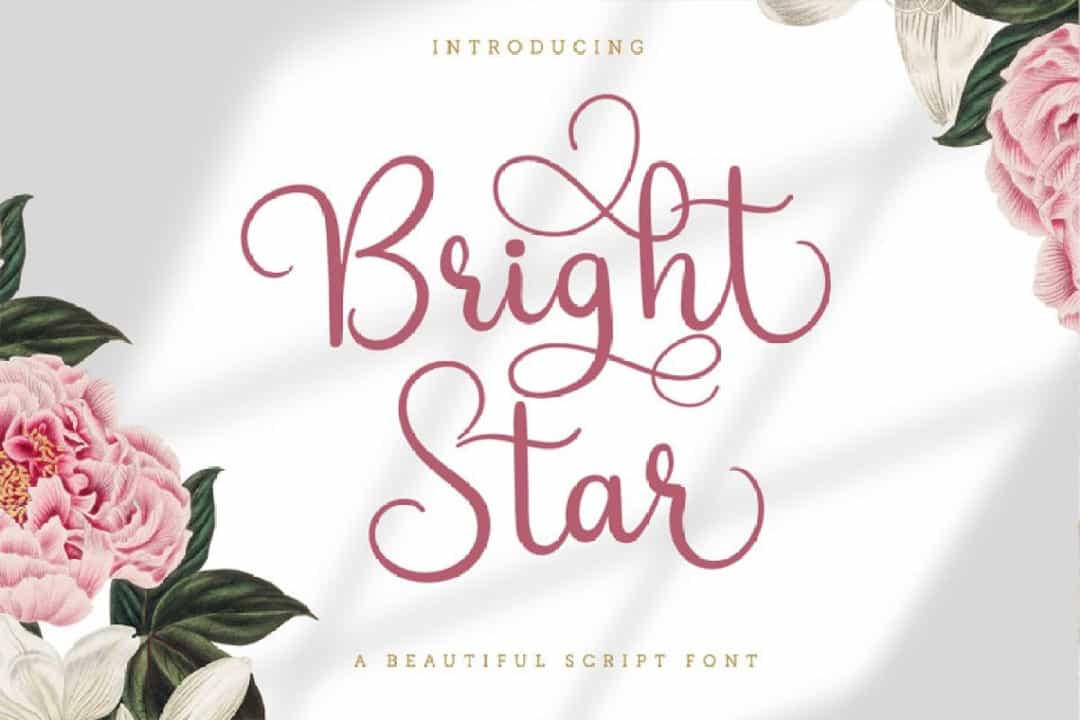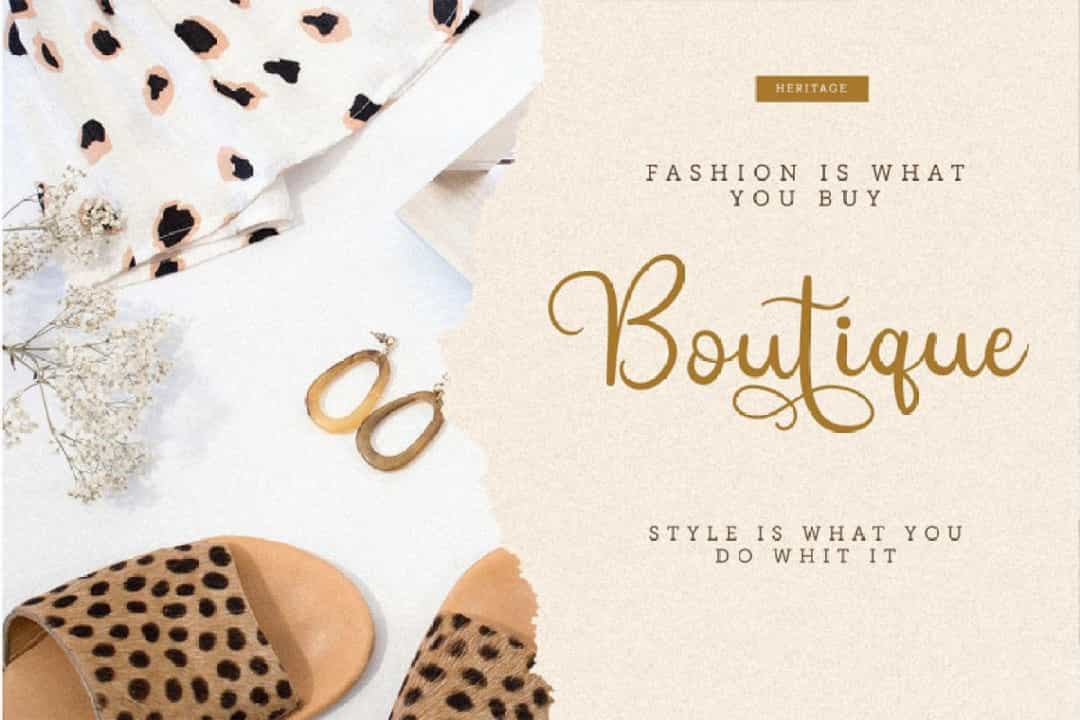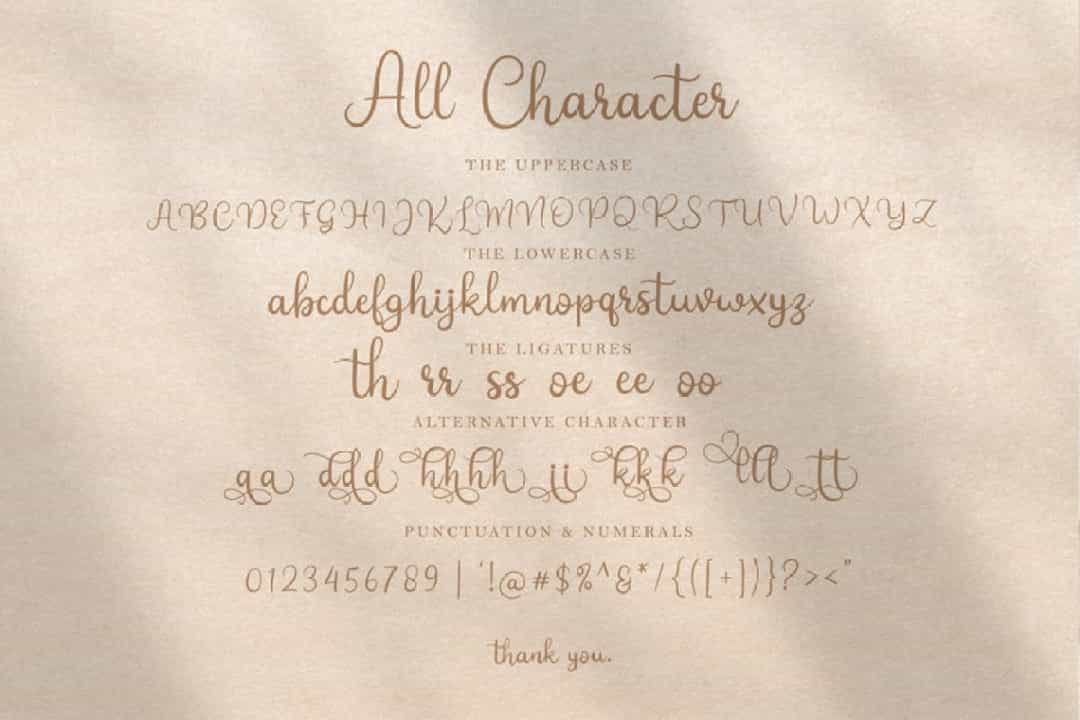
Bright Star is a beautiful script font suitable for branding, logos, menus, and product or quote packaging; or as a stylish text layer over any image. Here the designer included all lowercase and uppercase letters and numbers, the set of multilingual support punctuation marks, the list of ligatures and punctuation swashes, as well as the set of alternatives and swashes.